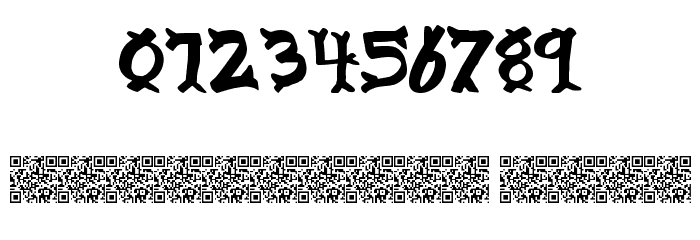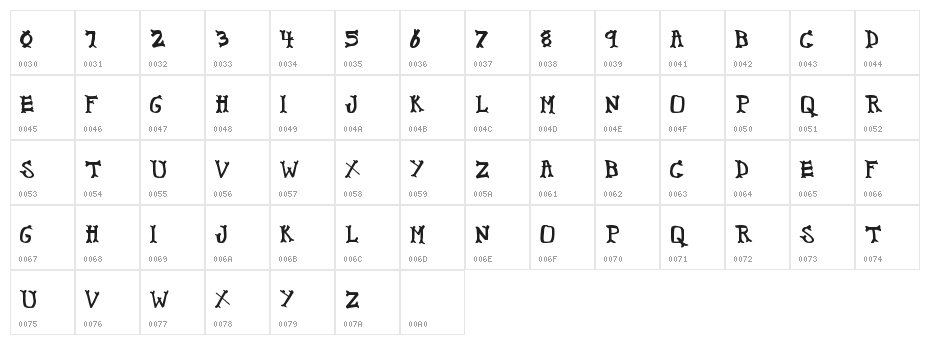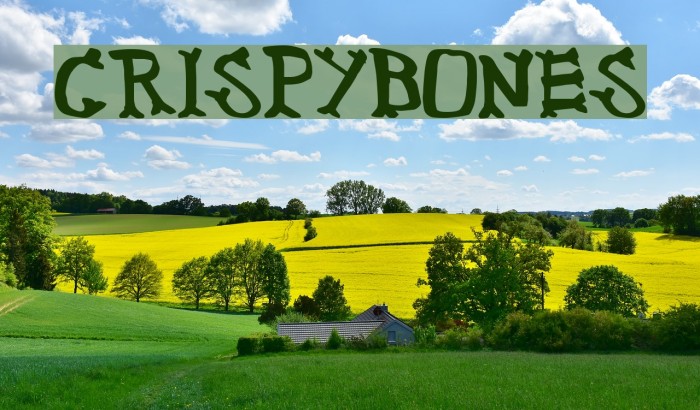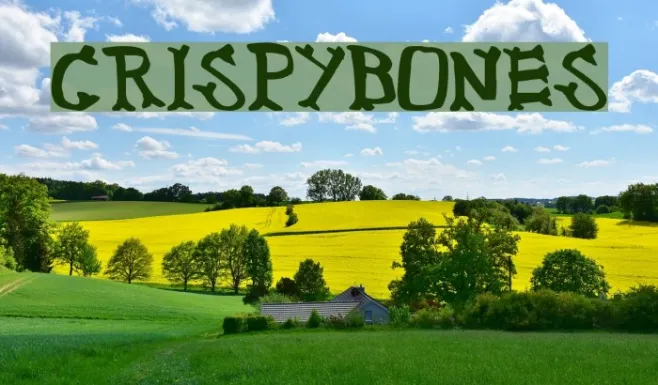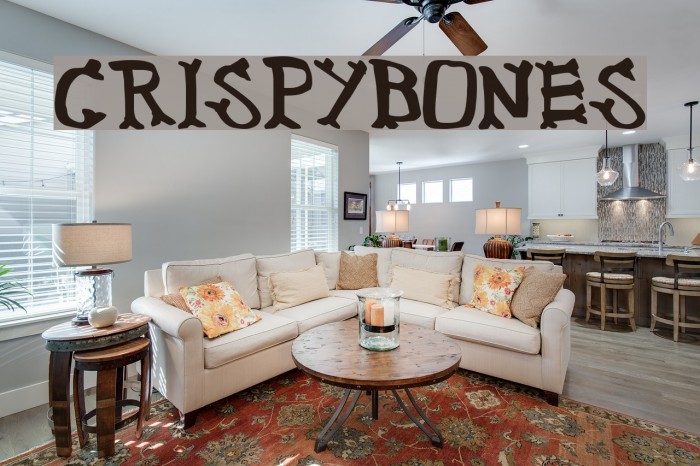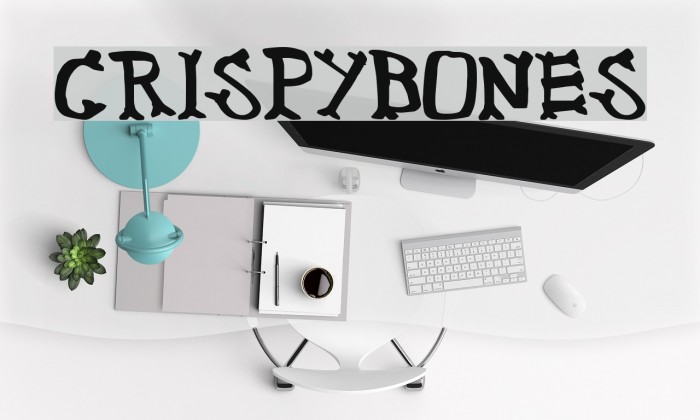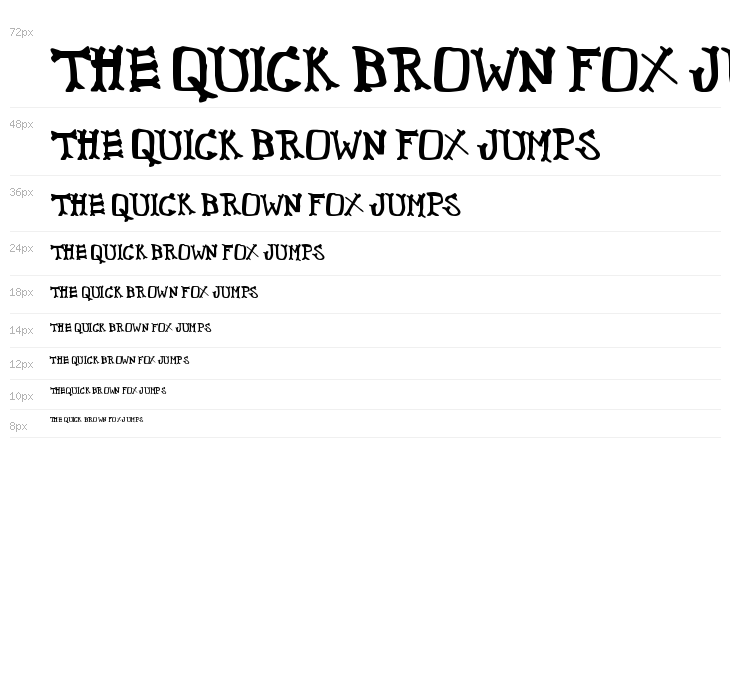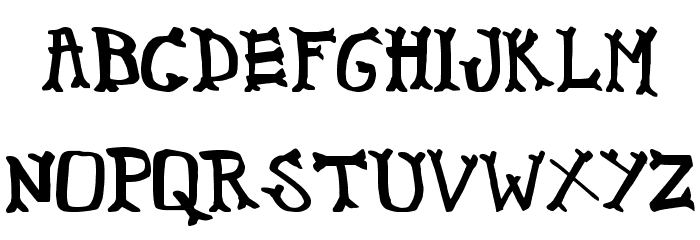
CrispyBones Font
CrispyBones Description
This font features a playful and spooky design, reminiscent of bones or skeletal structures. Each character is crafted with uneven, jagged edges, giving it a hand-drawn and slightly eerie appearance. The strokes are bold and irregular, adding to the font's unique and eye-catching style. The overall look is perfect for themes related to Halloween, horror, or anything that requires a touch of the macabre. The font maintains legibility despite its decorative elements, making it suitable for both headlines and short text blocks.
| Proposed Projects | Ideal for Halloween-themed posters, horror movie titles, spooky invitations, and themed merchandise. |